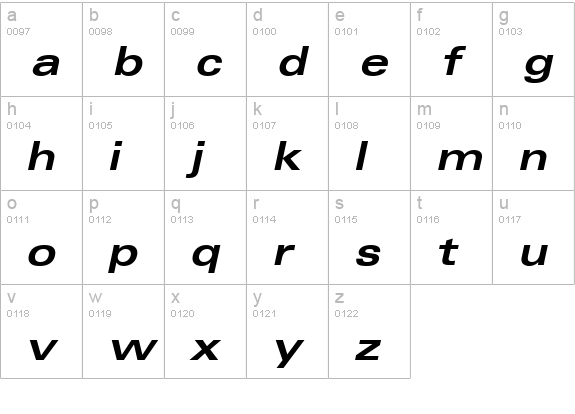
Nova Expanded SSi Bold Expanded Italic Font Details
Nova Expanded SSi Bold Expanded Italic is a strong, high-contrast, extended-width, italic variant in the Nova typeface family \xE2\x80\x94 well suited to headlines, attention-grabbing titles, and strong calls-to-action.
Nova Expanded SSi Bold Expanded Italic font is a stunning and eye-catching typeface that exudes confidence and modernity. Its bold and expanded italic design adds a touch of sophistication to any project, making it perfect for headlines, titles, and branding materials. The unique letterforms and sharp angles of this font command attention and make a bold statement. What makes Nova Expanded SSi Bold Expanded Italic font even more appealing is that it is available for free download at FontsMarket.com. This means that you can easily access and use this stylish font in your designs without any cost. Whether you're working on a professional project or a personal creative endeavor, Nova Expanded SSi Bold Expanded Italic font is a versatile and striking choice that is sure to make a lasting impression.